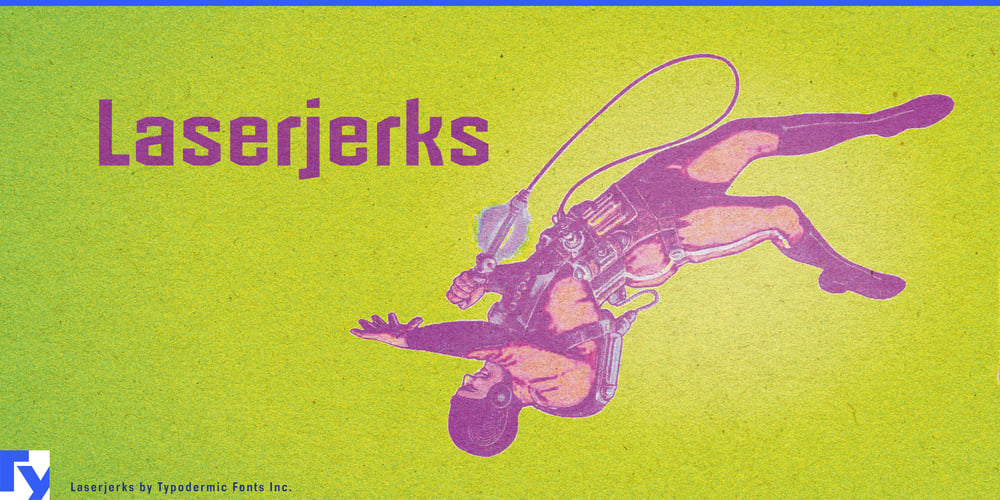
Laserjerks
Laserjerks font
Laserjerks Font Family was designed by Ray Larabie and published by Typodermic. Laserjerks contains 1 styles and family package options. Laserjerks: the typeface that doesn’t just break design rules—it obliterates them with gleeful abandon. This isn’t a font; it’s a visual assault, a brutalist battle cry against the tyranny of elegance and convention.Forget everything you thought you knew about typography. Laserjerks takes the concept of letterforms, runs it through a particle accelerator, and reassembles it in a dimension where the laws of visual harmony don’t apply. Its polygonal forms don’t merely suggest sharp edges—they threaten to slice through the very fabric of your design software. This typeface doesn’t aim for beauty; it aims for impact. Each character is a jagged, unapologetic statement, as if chiseled from the debris of a demolished brutalist monolith. Laserjerks revels in its inelegance. It wears its awkward angles and compressed alien aesthetics like badges of honor. In a world obsessed with sleek minimalism and effortless grace, Laserjerks stands defiant, a digital impudence raised to the gods of good taste. It’s the perfect choice for designs that need to scream rather than whisper, to provoke rather than please.But don’t mistake its brutality for lack of sophistication. Laserjerks is a masterclass in controlled chaos, each jarring form precisely calculated for maximum visual disruption. It’s the ideal companion for dystopian narratives, cyberpunk manifestos, or avant-garde art installations that aim to challenge perceptions and shatter expectations. Despite its otherworldly appearance, Laserjerks is surprisingly fluent in earthly tongues. Supporting a vast array of Latin-based European writing systems, it’s ready to unleash its visual havoc across borders and cultures. From the gritty streets of Berlin to the neon-drenched alleys of Gothenburg, Laserjerks speaks the universal language of unapologetic nonconformity.Ready to inject your designs with a dose of raw, unfiltered brutalism? Let Laserjerks be your weapon of choice.